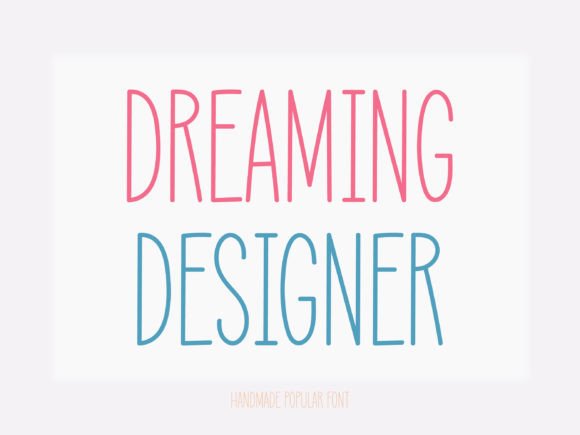
Dreaming Designer Font: Elevate Your Design with a Touch of Elegance
In the world of graphic design, typography plays a crucial role in conveying messages, evoking emotions, and creating visual identities. Among the numerous fonts available, the Dreaming Designer font stands out for its unique blend of handmade charm and minimalist sophistication. This article delves into the characteristics, benefits, and applications of the Dreaming Designer font, exploring how it can enhance your design projects.
The Essence of Dreaming Designer Font
Dreaming Designer is an eye-catching, handmade font that boasts clean lines and a minimalist design. This distinctive combination makes it an ideal choice for headlines and short titles, where clarity and visual impact are paramount. The font’s handwriting style injects a personal touch into your designs, while its glowing letters maintain a professional and polished look.
Key Features of Dreaming Designer Font
- Handmade with a Personal Touch: The Dreaming Designer font is crafted with a handwriting style that gives it a unique, personal feel. This aspect makes it perfect for designs that require a touch of individuality and warmth.
- Clean Lines and Minimalist Design: The clean lines and minimalist aesthetic of the font ensure that it remains versatile and easy to read. This simplicity makes it suitable for a wide range of design applications, from luxury brands to creative portfolios.
- Glowing Letters for Professional Impact: The glowing effect of the letters adds a sophisticated and professional edge to the font. This feature is particularly effective in headlines and titles, where grabbing the viewer’s attention is crucial.
- Perfect for Headlines and Short Titles: The Dreaming Designer font is specifically designed to excel in headlines and short titles. Its combination of style and readability ensures that your key messages stand out and engage your audience effectively.
Applications of Dreaming Designer Font
The versatility of the Dreaming Designer font makes it suitable for various design projects. Here are some of the key areas where this font can make a significant impact:
Graphic Design and Branding
In graphic design and branding, establishing a strong visual identity is crucial. The Dreaming Designer font can be used to create memorable logos, business cards, and letterheads that reflect a brand’s personality and values.
Digital Media and Advertising
For digital media and advertising, the font’s readability and eye-catching design make it perfect for online banners, social media posts, and promotional materials. Its glowing letters can help your ads stand out in a crowded digital landscape.
Packaging and Product Design
The Dreaming Designer font can also be applied to packaging and product design, adding an element of sophistication and elegance to product labels, packaging boxes, and instruction manuals.
Web Design and Development
In web design, typography is critical for user experience. Using the Dreaming Designer font for headings and titles can enhance a website’s aesthetic appeal and make it more engaging for visitors.
Tips for Using Dreaming Designer Font Effectively
To maximize the impact of the Dreaming Designer font, consider the following tips:
Combine with Complementary Fonts
Pair the Dreaming Designer font with complementary fonts that have a simpler, more straightforward design. This contrast can help maintain readability while adding visual interest to your designs.
Use for Headlines and Accents
Reserve the Dreaming Designer font for headlines, titles, and key accents. This approach ensures that your main messages stand out and prevents the design from becoming too cluttered or overwhelming.
Experiment with Colors and Effects
Don’t be afraid to experiment with different colors and effects to enhance the glowing letters of the Dreaming Designer font. This can help you tailor the font to fit your brand’s color scheme and design aesthetic.
The Dreaming Designer font offers a unique blend of handmade charm and professional sophistication, making it an excellent choice for designers looking to elevate their projects. Its clean lines, minimalist design, and glowing letters provide a versatile tool that can enhance a wide range of design applications. By incorporating the Dreaming Designer font into your projects and using it effectively, you can create visually stunning and impactful designs that capture your audience’s attention and leave a lasting impression.